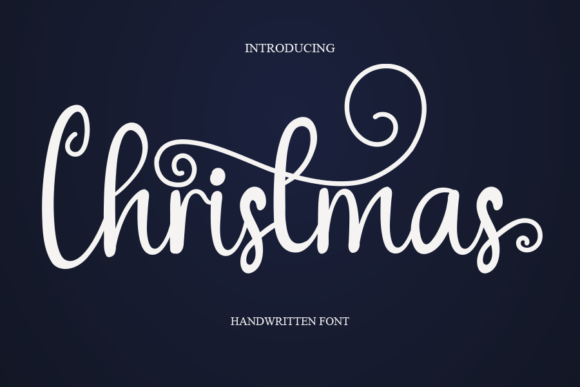
The Magic of Christmas Font: Adding a Touch of Handwritten Charm to Your Designs
There’s nothing quite like the feeling of curling up by the fireplace with a warm cup of hot cocoa and a blank canvas in front of you, waiting to unleash your creativity. As the holiday season approaches, you can’t help but feel inspired to create something special – whether it’s a festive holiday card, a custom gift tag, or a social media post that captures the essence of the season.
That’s where the Christmas Font comes in – a beautiful, handwritten font that adds a touch of warmth and personality to any project. This versatile font is perfect for designers who want to give their designs a unique, handmade feel without sacrificing professionalism. With its elegant, cursive script, the Christmas Font is ideal for a wide range of applications, from wedding invitations to product packaging and social media logos.
Christmas Font Key Features
- Unique Characteristics: Features a festive and playful design, with intricate details and ornaments reminiscent of traditional Christmas decorations.
Designer Review: Christmas Font
Overall, the Christmas Font is a sweet and festive addition to any holiday-themed project. ✨ I love the playful, handwritten feel it brings to the table. The font is perfect for creating a whimsical and fun atmosphere, making it ideal for projects like greeting cards, social media graphics, and even advertising campaigns.
- The Christmas Font features a wide range of characters, including uppercase and lowercase letters, numbers, and punctuation marks.
- The font is highly customizable, allowing users to adjust the size, color, and style to fit their design needs.
- The font’s hand-drawn design makes it easy to read and understand, even at small font sizes.
However, there are a few limitations to consider: ⚠️ The font is not suitable for formal or professional projects, as it can come across as too casual or playful. Additionally, the font may not be as versatile as other fonts, as its Christmas theme may limit its use in non-holiday-related projects.
Overall, I would give the Christmas Font 4 out of 5 stars. While it’s a fun and festive font, it’s not suitable for all projects. However, for holiday-themed designs, it’s a great choice. With a little creativity, the Christmas Font can add a lot of personality and charm to any project.
Getting the Most Out of the Christmas Font
To get the most out of the Christmas font, consider the following tips:
- Use the font in conjunction with festive graphics and images.
- Use the font to create a cohesive brand identity.
The Christmas font is commonly used in:
- Holiday greeting cards and invitations.
- Christmas party and event marketing materials.
- Winter-themed social media graphics and ads.